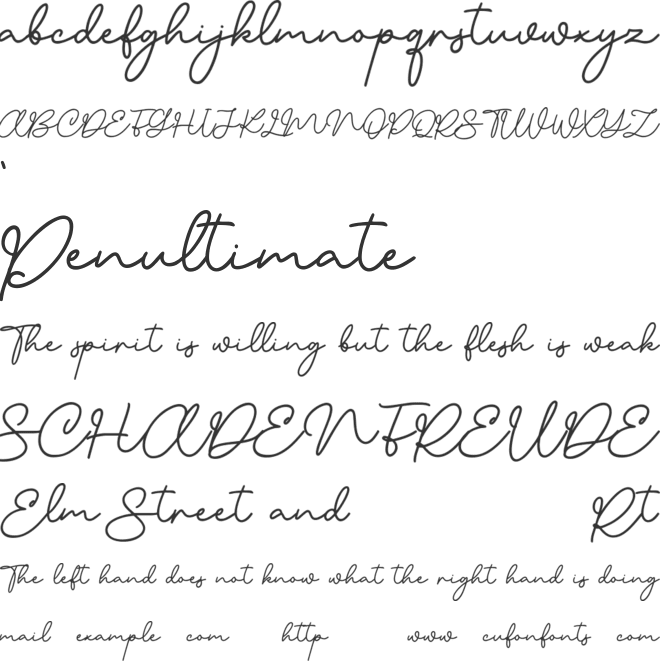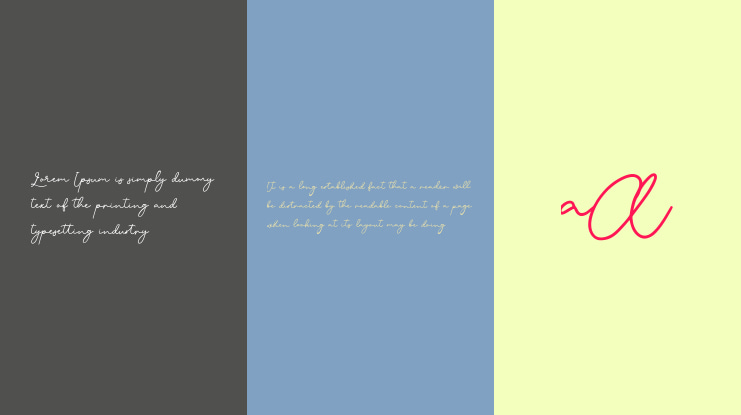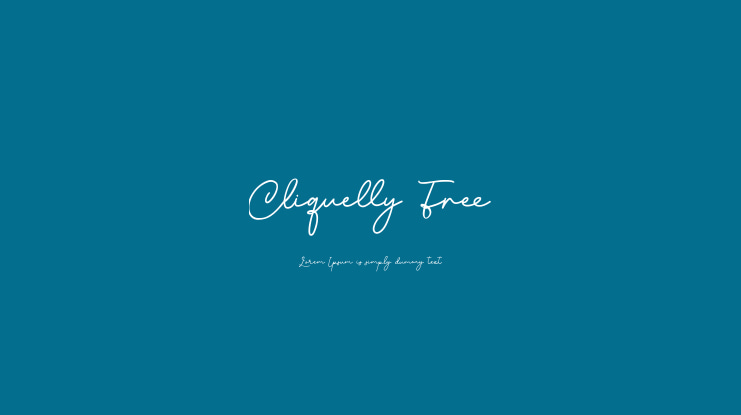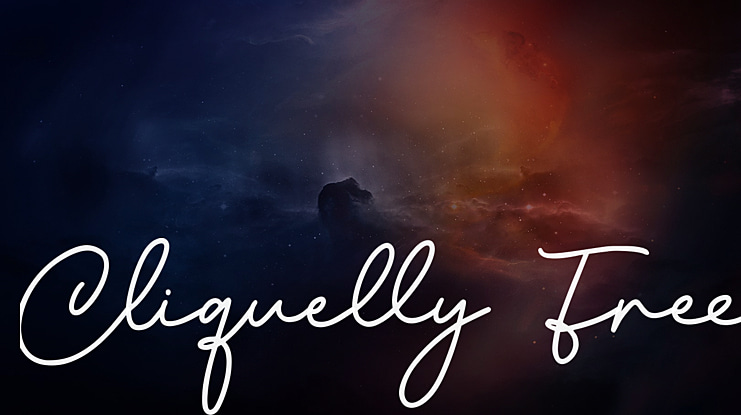
Cliquelly Free Font
It’s a monoline script typeface created by Maulana Creative with curves and lines are so soft that makes this font look pretty and realistic. It has Opentype features ligatures of character, To give you an extra creative work. Cliquelly font support multilingual more than 100+ language. This font is good for logo design, Social media, Movie Titles, Books Titles, a short text even a long text letter and good for your secondary text font with sans or serif. Make a stunning work with Cliquelly font.